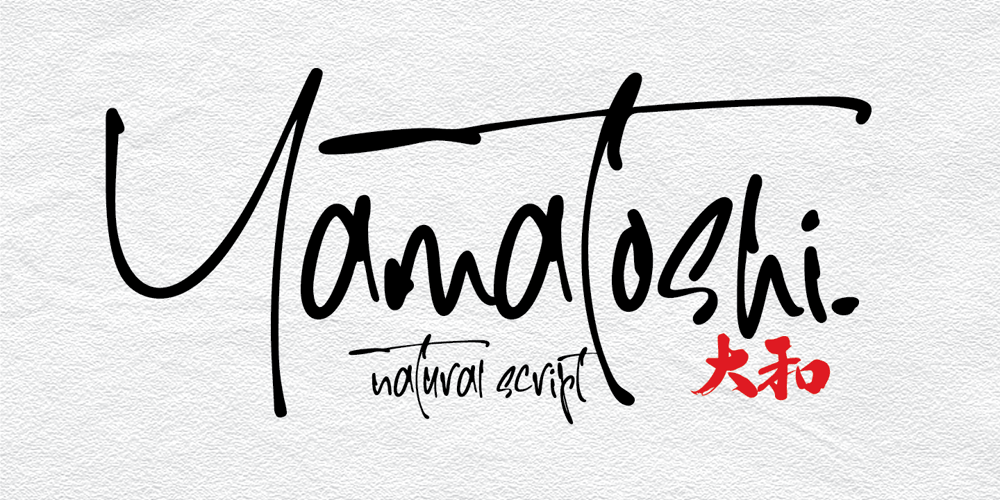
Yamatoshi Font Family was designed by Muhammad Ridha Agusni, Siti Saribanon Nurjannah and published by Cititype. Yamatoshi contains 1 styles and family package options. Yamatoshi is a handwritten script font inspired by Japanese calligraphy culture. Suitable to energized your design with free spirit vibe. Seems like it was written effortlessly that makes Yamatoshi stands out for its natural charm.